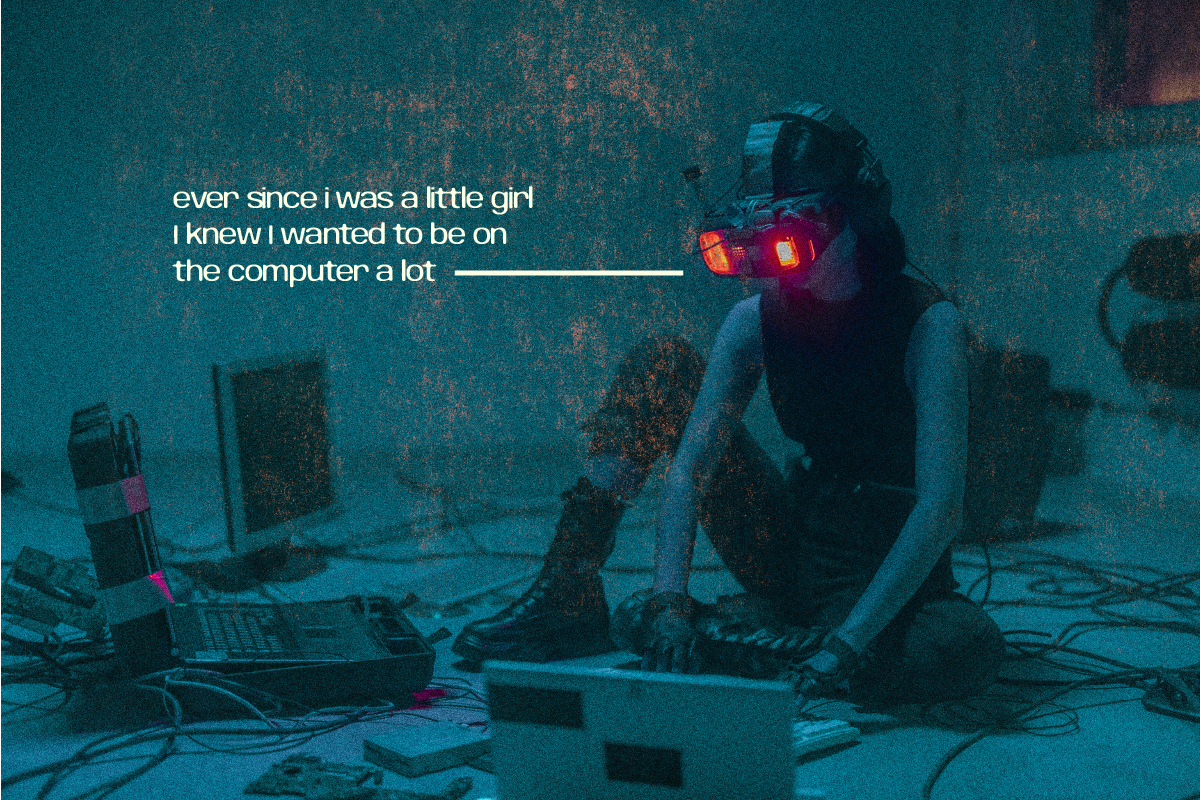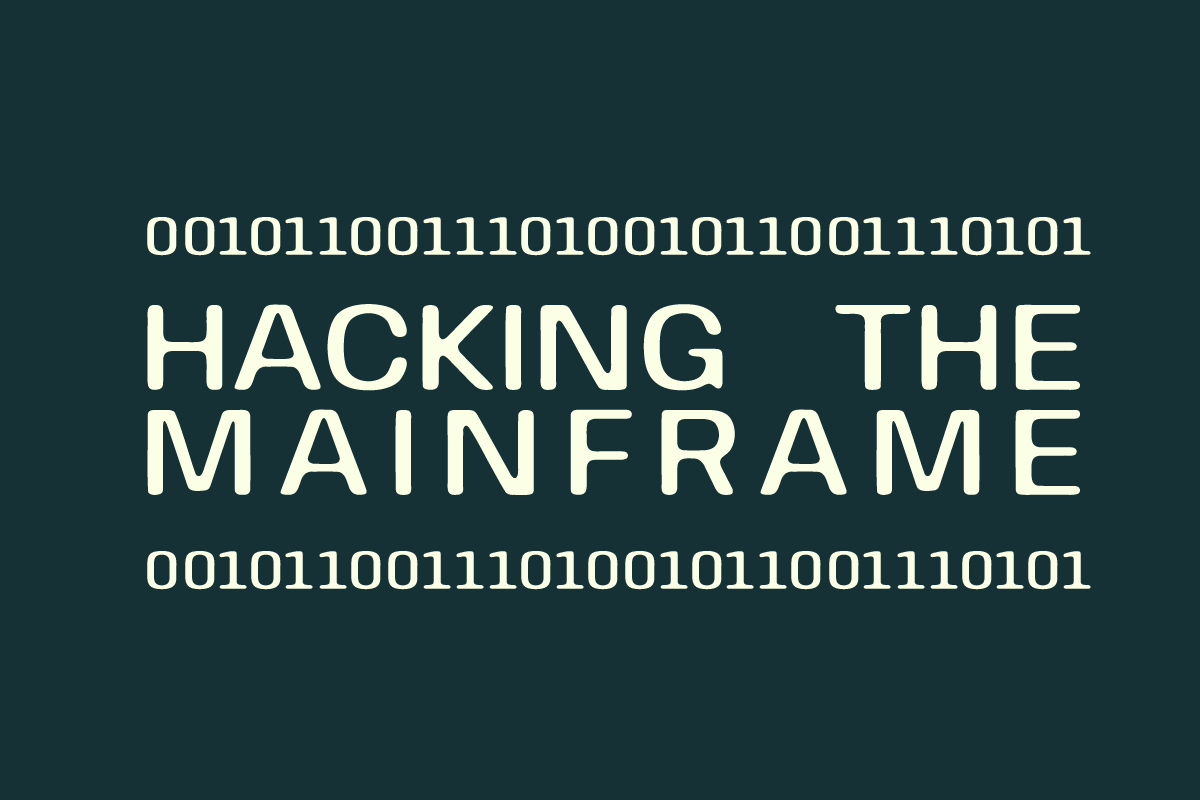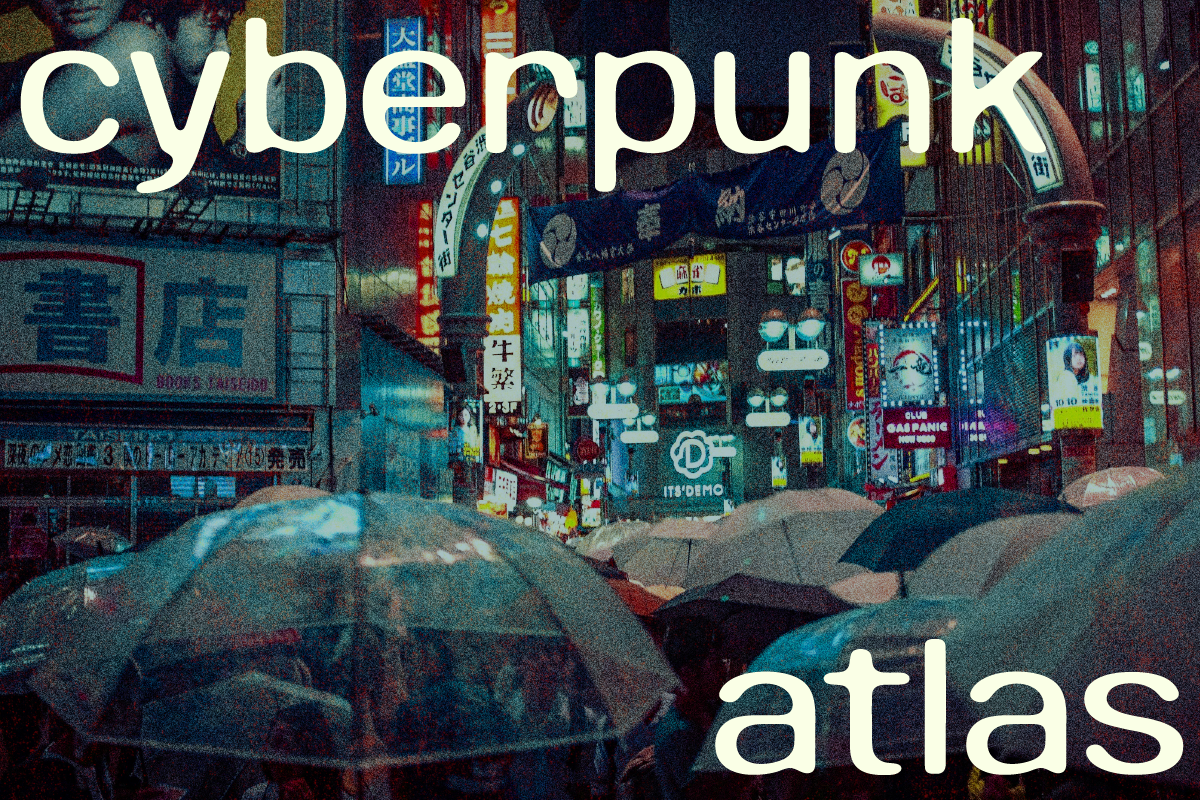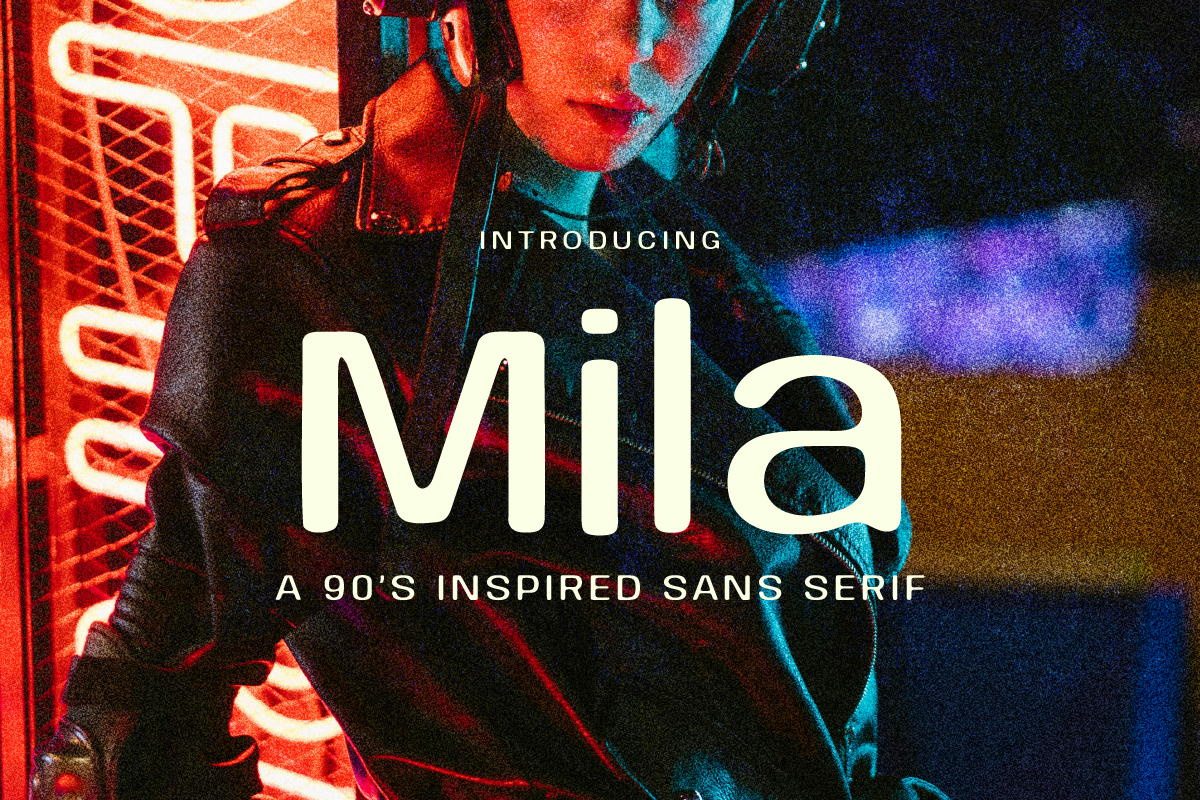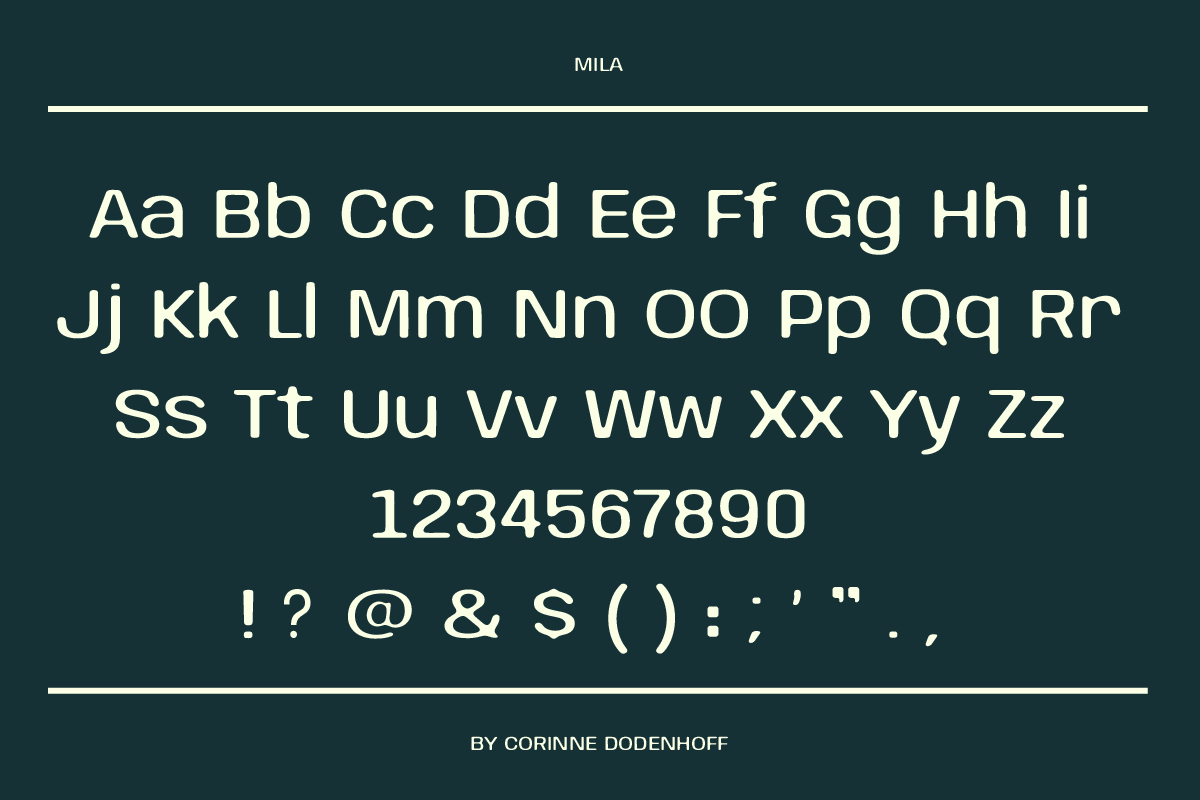
Mila: A 90's inspired cyberpunk font
This multipurpose font is perfect for flexible use, either as display type or for large bodies of text. Inspired by the 90's and the cyberpunk movement.